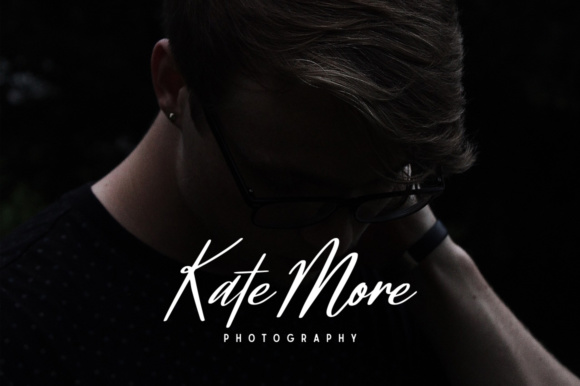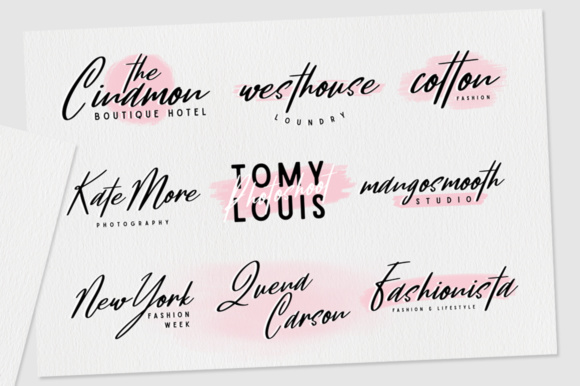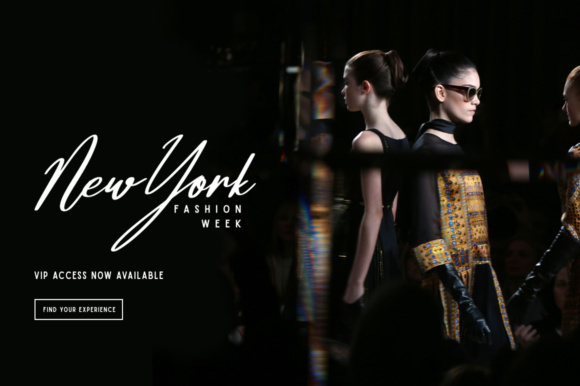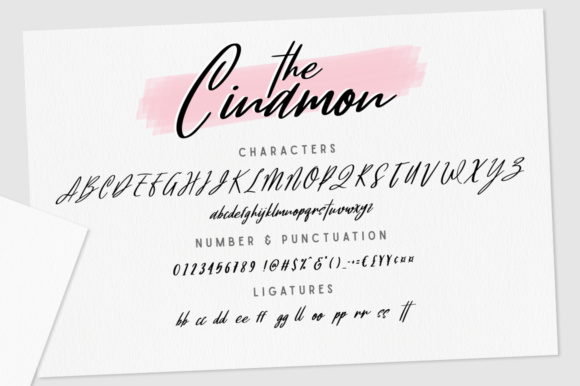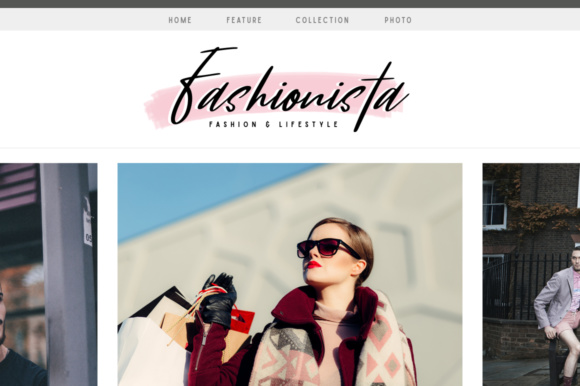
Cinnamon Font: The Perfect Addition to Your Design Arsenal
In the world of design, fonts play a crucial role in conveying the tone and personality of a brand. A well-chosen font can elevate your design and make it more engaging, while a poorly chosen one can have the opposite effect. If you’re a designer or crafter looking to add a personal touch to your designs, look no further than the Cinnamon Font. This fresh, handwritten signature font is perfect for adding a feminine touch to your designs, making it ideal for personal and business branding.
What is Cinnamon Font?
The Cinnamon Font is a beautiful, handwritten signature font that exudes elegance and sophistication. Its unique and flowing script makes it perfect for adding a personal touch to your designs. Whether you’re creating a logo, social media graphics, or marketing materials, this font is sure to make your designs stand out. With its high-quality design, the Cinnamon Font is perfect for both personal and business use, allowing you to create professional-looking designs that reflect your brand’s personality.
The Benefits of Using Cinnamon Font
So, why choose the Cinnamon Font over other fonts? Here are just a few benefits of using this amazing font:
- Feminine Touch: The Cinnamon Font has a distinctly feminine feel, making it perfect for designs that require a touch of elegance and sophistication.
- High-Quality Design: The font is designed with high-quality in mind, ensuring that your designs look professional and polished.
- Versatility: The Cinnamon Font is versatile and can be used for a wide range of design projects, from logos and branding materials to social media graphics and marketing materials.
How to Use Cinnamon Font in Your Designs
Using the Cinnamon Font in your designs is easy. Here are a few tips to get you started:
- Pair it with Other Fonts: The Cinnamon Font pairs well with other fonts, making it easy to create visually appealing designs. Try pairing it with a bold font for a striking contrast.
- Use it for Headings: The Cinnamon Font is perfect for headings and titles, adding a touch of elegance and sophistication to your designs.
- Add it to Your Branding Materials: Use the Cinnamon Font in your branding materials, such as your logo, business cards, and marketing materials, to create a consistent look and feel.
Why Designers and Crafters Love Cinnamon Font
Designers and crafters love the Cinnamon Font for many reasons. Here are a few:
- Unique and Fresh: The Cinnamon Font is a fresh and unique font that adds a personal touch to designs.
- Feminine and Elegant: The font has a distinctly feminine and elegant feel, making it perfect for designs that require a touch of sophistication.
- High-Quality: The font is designed with high-quality in mind, ensuring that designs look professional and polished.
| Font Name | Cinamon Font |
| Author | AMSUPPLY |
Key Features of Cinnamon Font
| Font Type | Handwritten Signature Font |
| Font Style | Feminine, Elegant, and Sophisticated |
| Quality | High-Quality Design |
| Use Cases | Personal and Business Branding, Logos, Social Media Graphics, Marketing Materials |